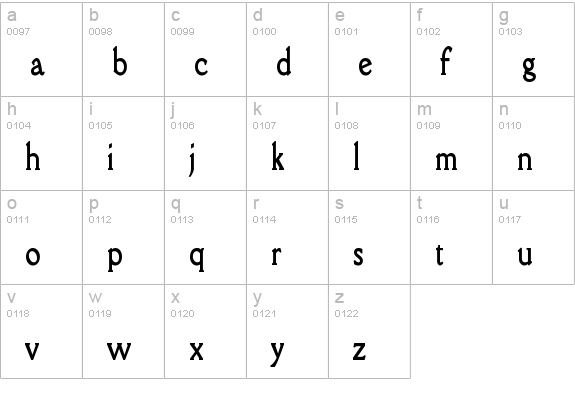
Rory Thin Bold is a delicate, low-contrast variant in the Rory typeface family \xE2\x80\x94 well suited to fashion editorial, minimal branding, and high-contrast display.
Rory Thin Bold font is a modern and sleek typeface that exudes sophistication and elegance. With its thin yet bold design, this font is perfect for adding a touch of class to any project. Whether you're designing a logo, creating a poster, or crafting a stylish website, Rory Thin Bold font will make your text stand out. The best part? Rory Thin Bold font is completely free to download at FontsMarket.com. That's right, you can elevate your designs without spending a dime. So why wait? Head over to FontsMarket.com now and get your hands on this stunning font for all your creative endeavors.